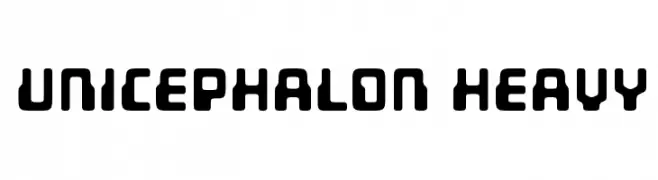
( nalgames.com )
A bold, angular font with a futuristic and aggressive design.
( Fonts by Disaster Fonts )
A futuristic, digital-style font with horizontal line effects.
( Fonts by Disaster Fonts )
A bold, pixelated font with a retro digital aesthetic.
( Fonts by Disaster Fonts )
A bold, geometric font with rounded edges and a modern look.
( Fonts by Disaster Fonts )
A bold, geometric font with a futuristic, tech-inspired style.
( Fonts by Disaster Fonts )
A futuristic, geometric font with bold, high-contrast characters.
A modern, geometric sans-serif font with rounded edges and a clean design.
( Fonts by Andrea Gaspari )
A hand-drawn, textured font with a casual and artistic feel.
A playful, bold font with exaggerated curves and whimsical shapes.
( Andrea Bartsch - www.fraubartsch.de )
A decorative dingbat font with jungle-themed silhouettes on popsicle sticks.